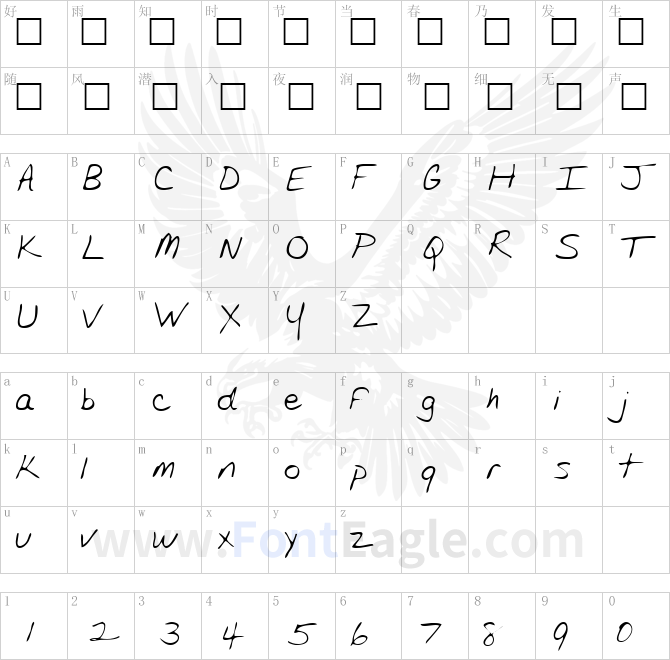
- Font name:LaurensHand
LaurensHand-Regular is a great font, widely used in graphic design, single-page menu design, poster design and other fields, and is deeply loved by designers.LaurensHand-Regular download.